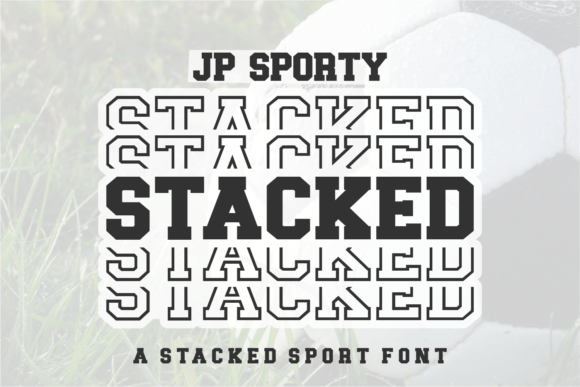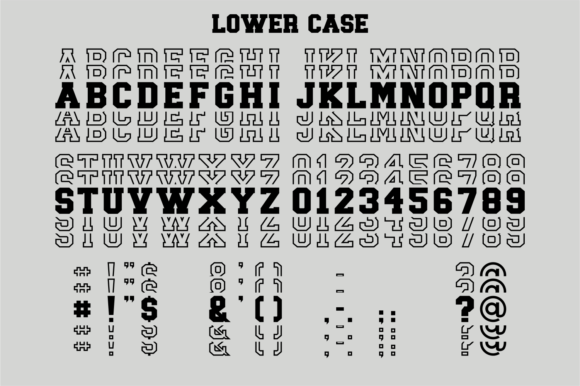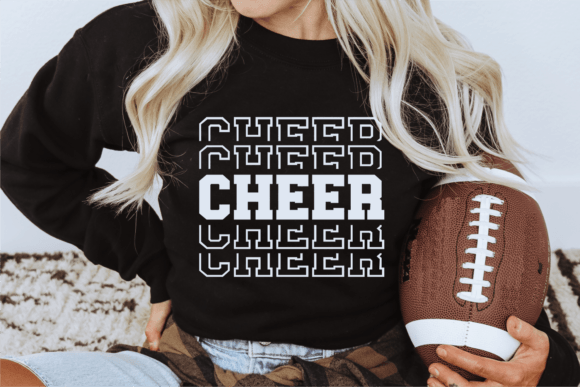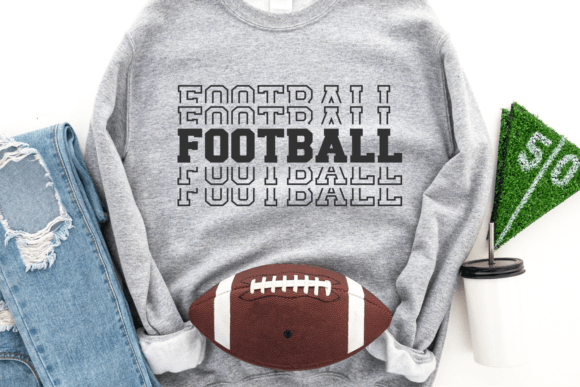
JP Sporty Stacked font is two fonts in one. Use upper case to get solid letters and lower case to get outlined letters. It looks powerful and is created to add a vibrant touch to your sport-inspired designs. Suitable for sports design, team, jersey, league, movie, documenter, film, logo, poster, game, book cover, headlines, title, and many more projects.
Jp Sporty Stacked Font